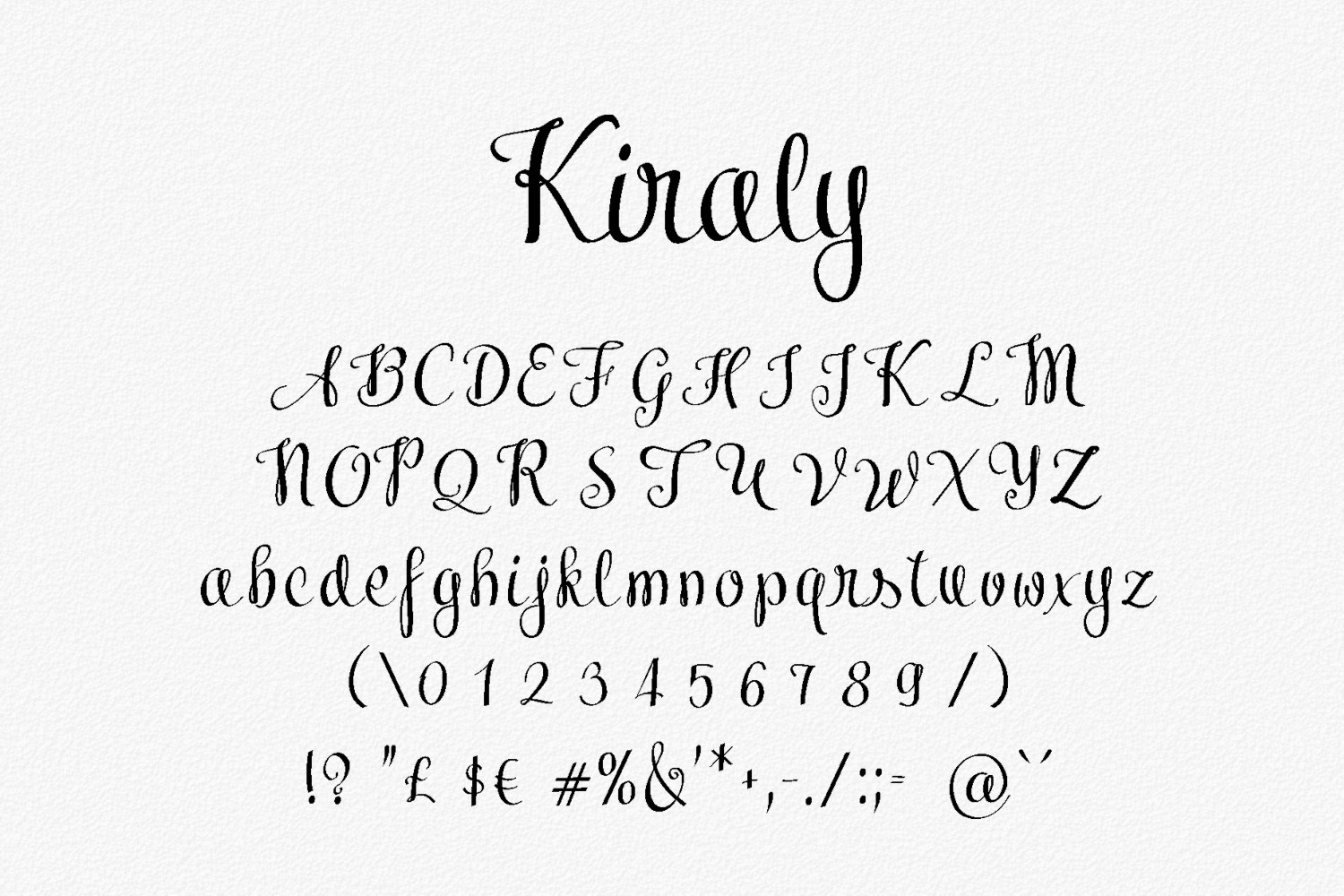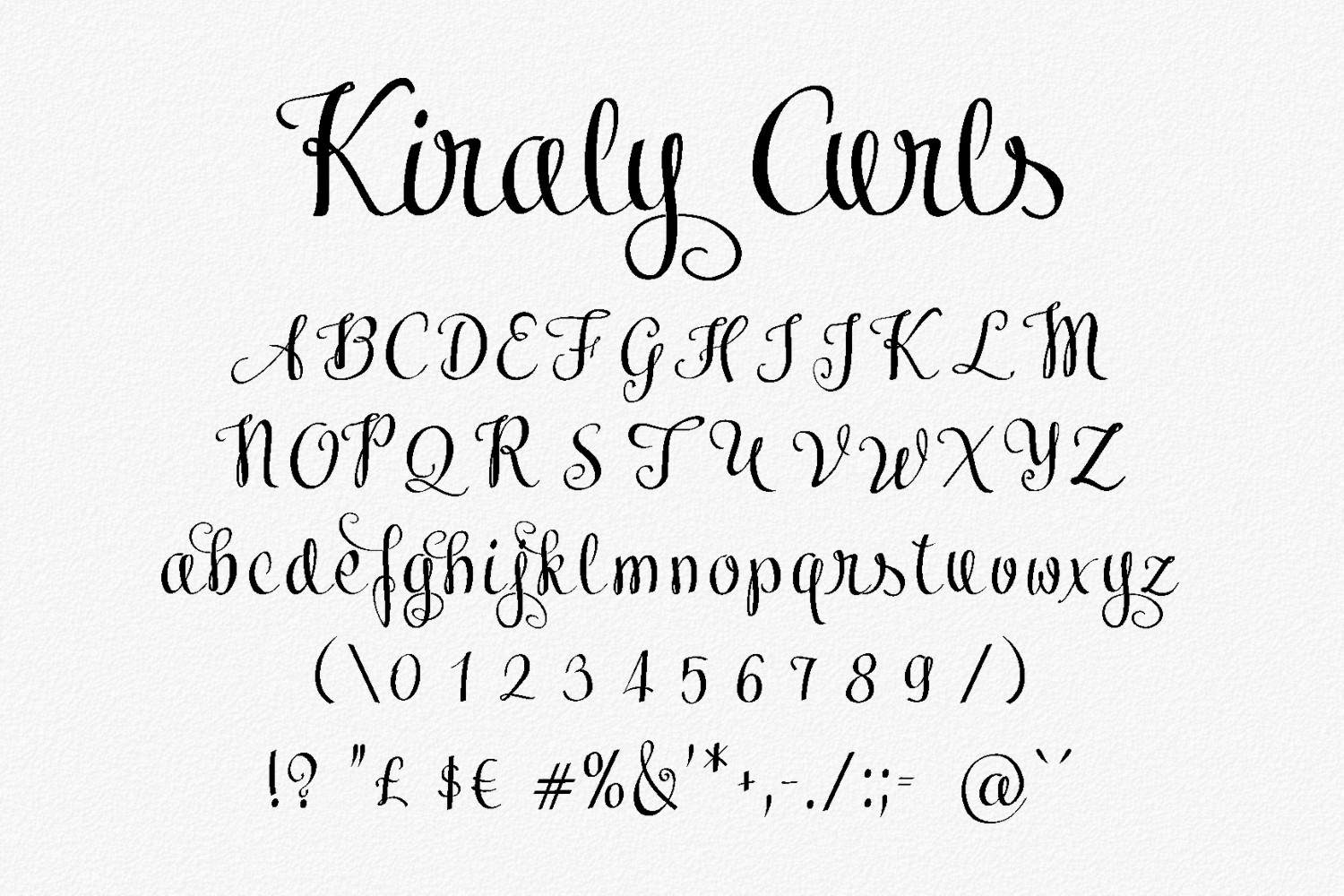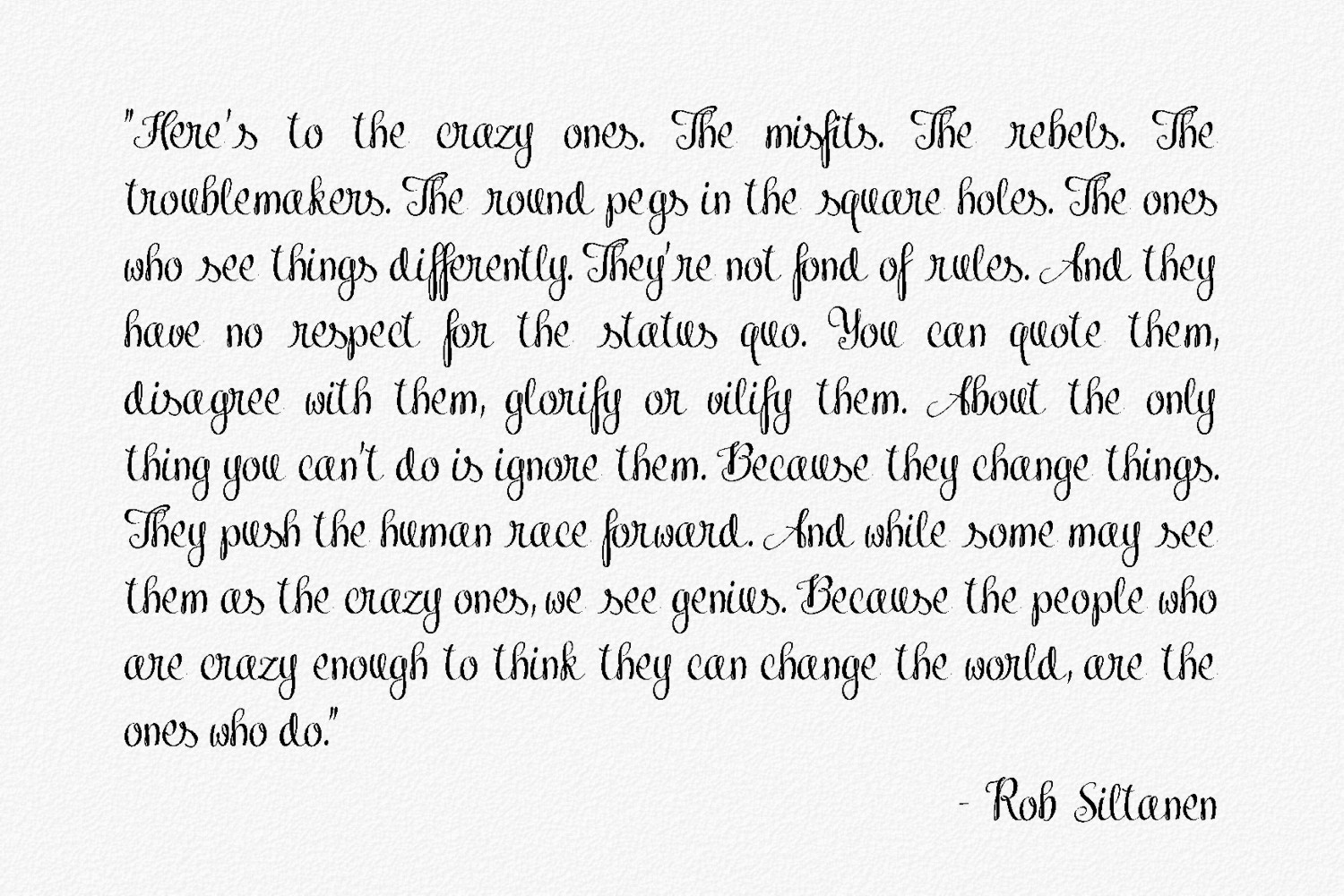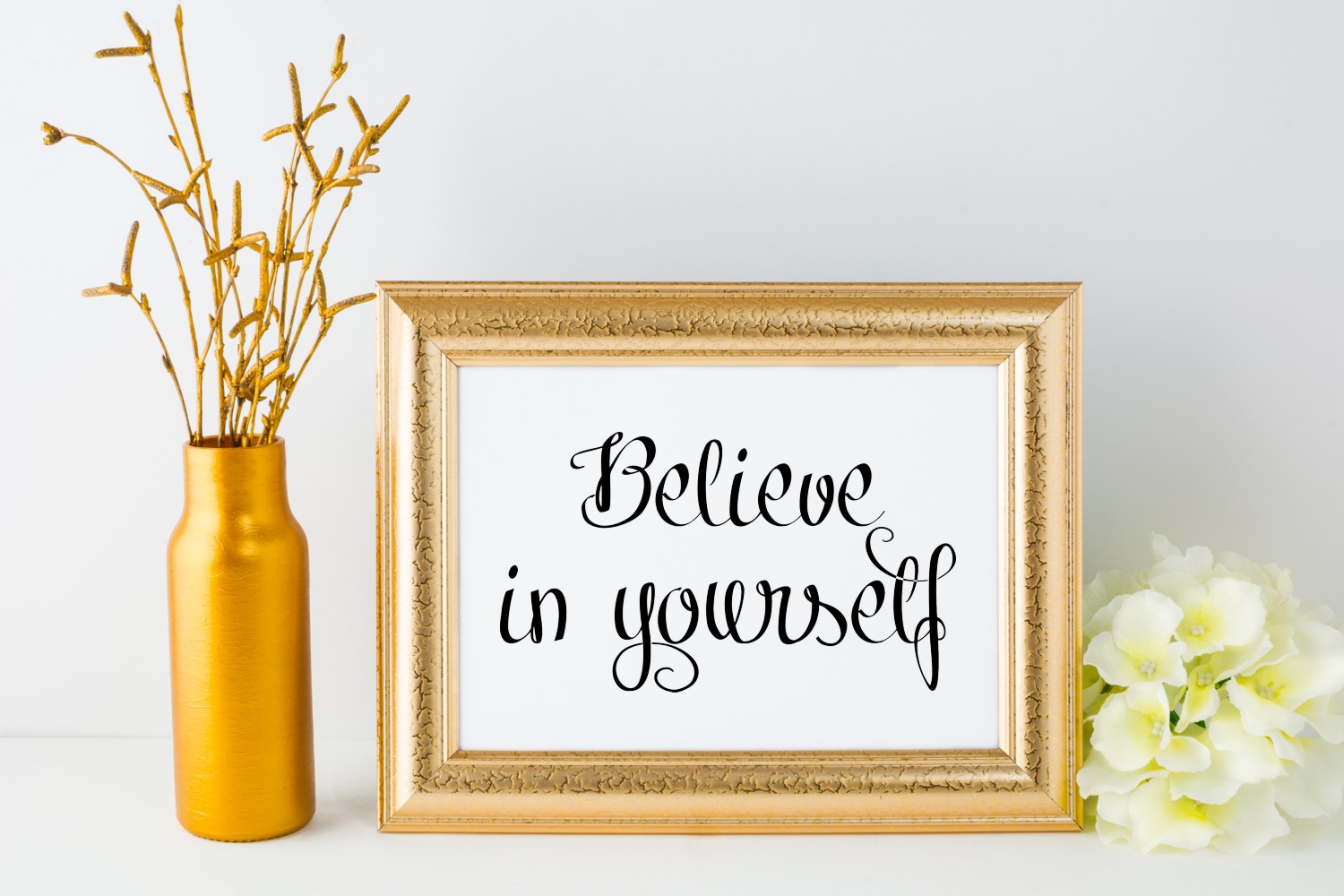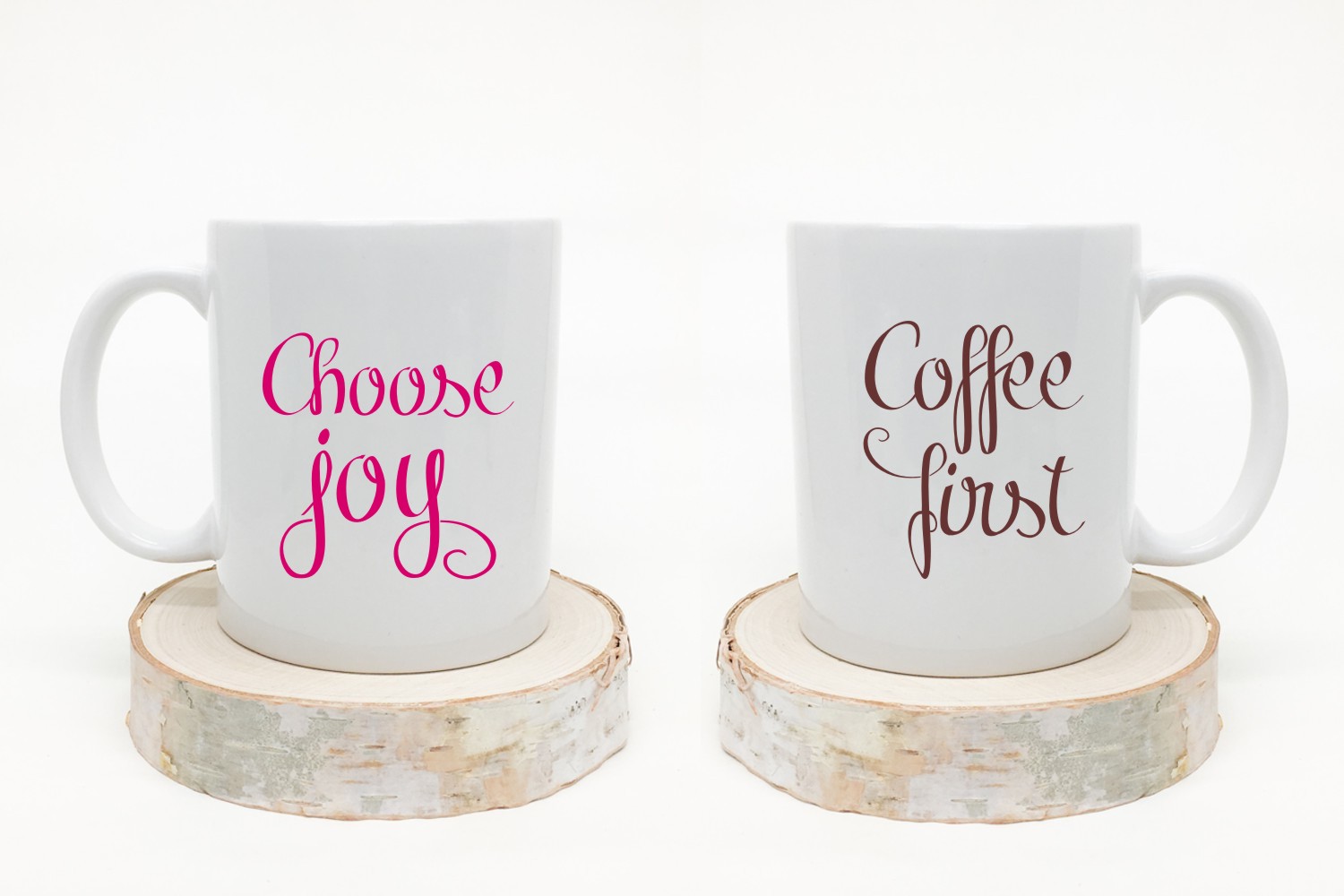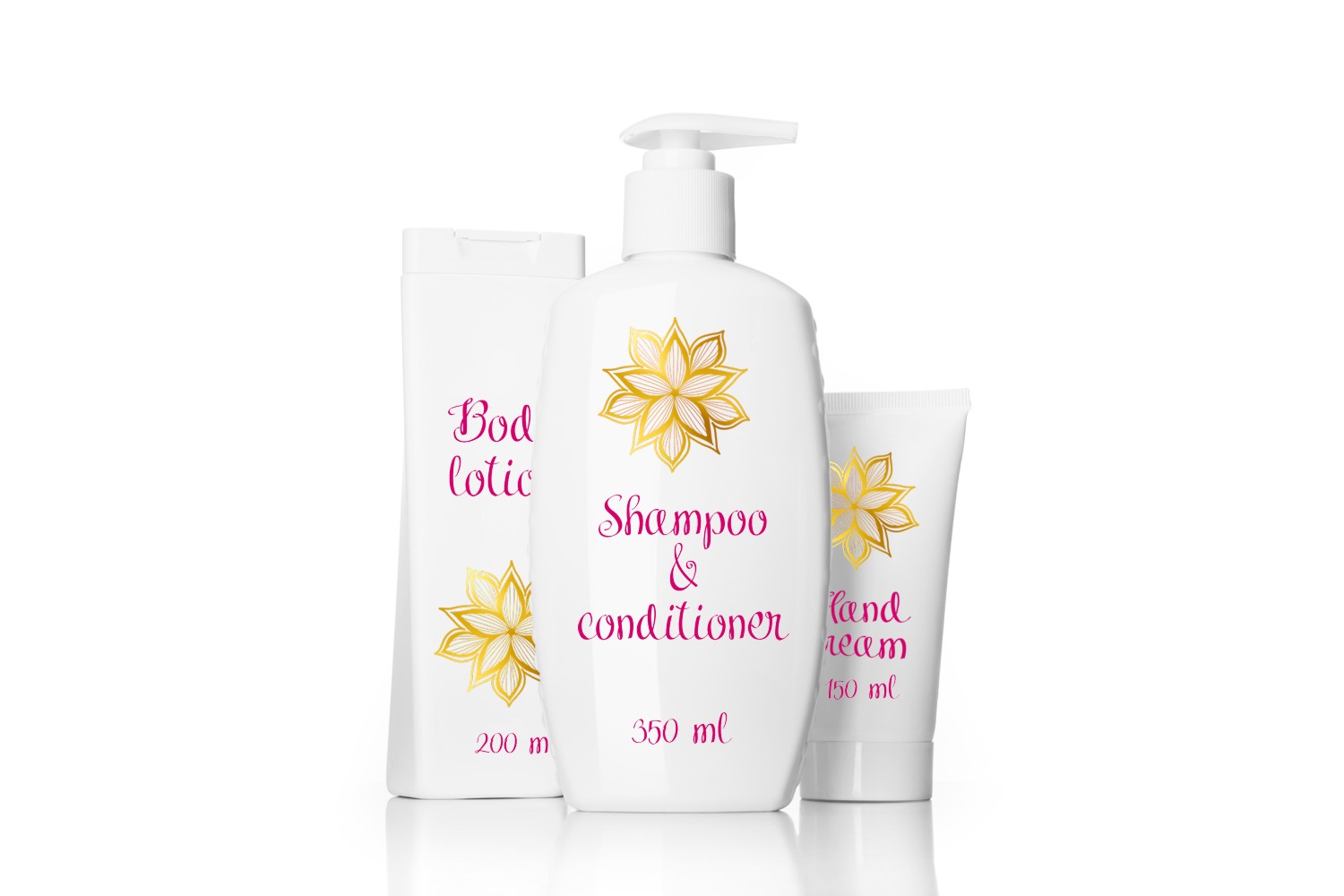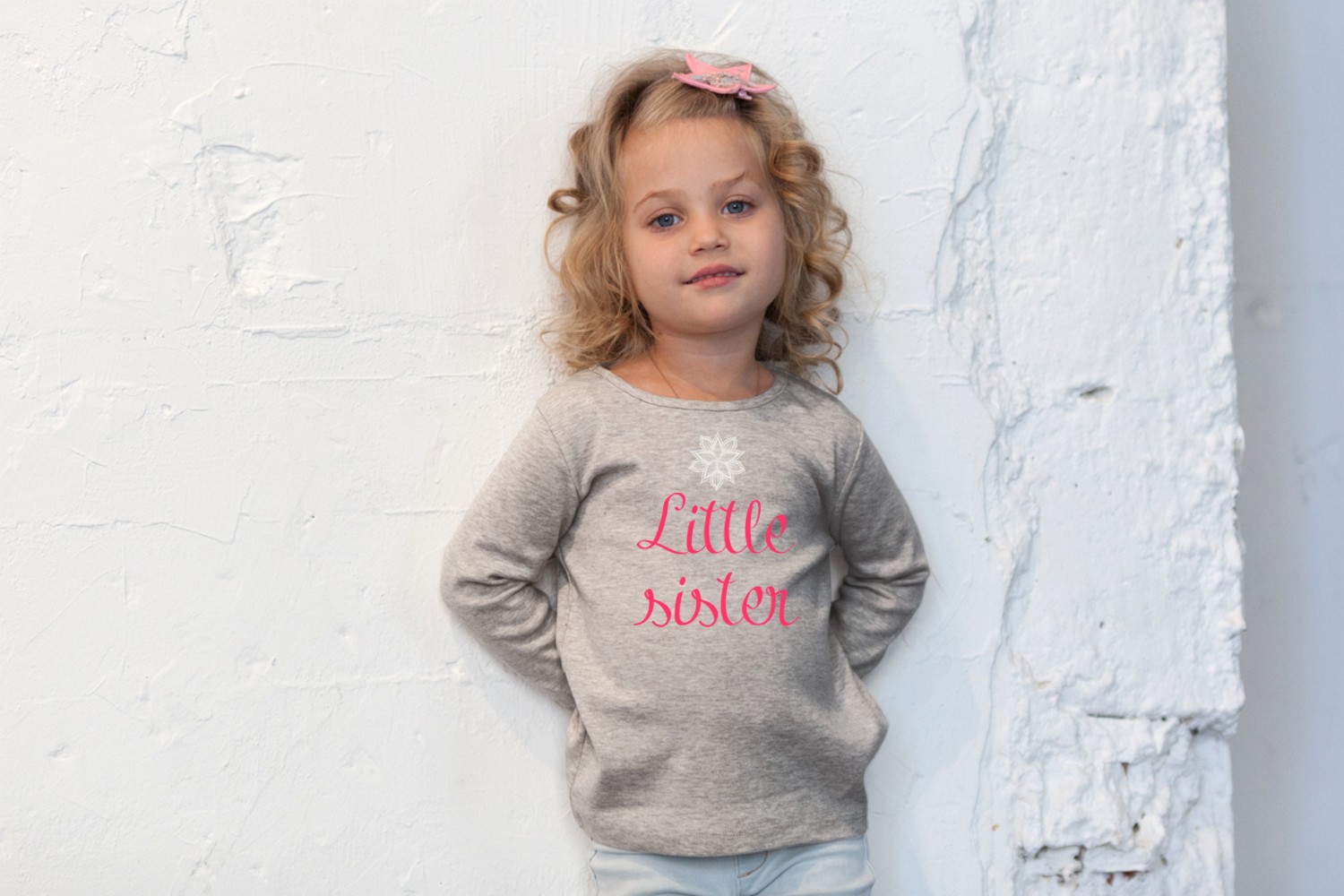
Kiraly Font
Kiraly comes in two gorgeous styles, Regular and Curls, giving it a maximized potential in design and style. This is a romantic and feminine font crafted with love and attention to detail.